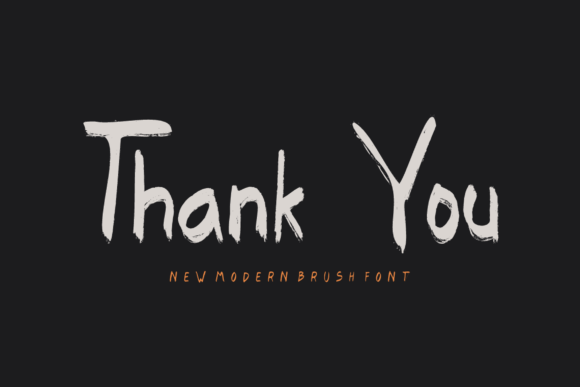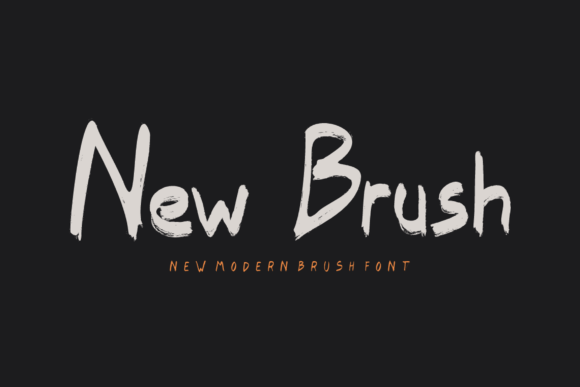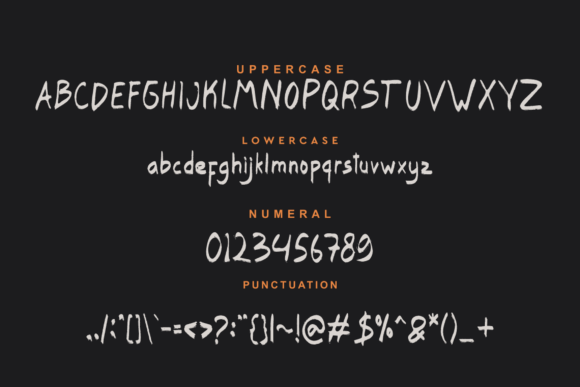
Unleash Your Creativity with the Brush Elementary Font
Have you ever been working on a design project and suddenly, the perfect font pops into your mind? That’s exactly what happened to me when I discovered the Brush Elementary Font. I was brainstorming ideas for a new logo, and the moment I typed out the words in this beautiful handwritten brush font, I knew I had found the perfect match. The unique touch and charm of Brush Elementary Font instantly elevated my design and gave it a life of its own.
The Brush Elementary Font is a game-changer for designers looking to create eye-catching logos, branding, and quotes. Its beautiful, handwritten style adds a personal touch to any design, making it stand out from the crowd. Whether you’re a seasoned pro or just starting out, this font is a valuable addition to your design toolkit. Its versatility and unique character make it the perfect choice for designers who want to add a touch of personality to their work.
Brush Elementary Font Key Features
- Unique Characteristic: Brush Elementary Font features a unique, hand-drawn style with subtle imperfections, giving it a personal and artistic touch.
- Kerning and Ligatures: The font includes advanced kerning and ligature pairs, ensuring smooth and even spacing between letters.
Brush Elementary Font Review
Overall, I’m quite pleased with the Brush Elementary Font. It’s got a certain charm to it that’s hard to put your finger on, but it’s definitely there.
- ✨ Unique character: The Brush Elementary Font has a distinct personality that sets it apart from more common fonts. It’s a great choice for anyone looking to add some visual interest to their designs.
- ✨ Friendly and approachable: The font’s rounded edges and soft curves make it feel welcoming and easy to read.
- ✨ Versatile: Brush Elementary Font works well in a variety of contexts, from children’s books to branding and advertising.
- ⚠️ Limited font weights: The font only comes in a few weights, which can make it difficult to achieve the desired level of contrast and hierarchy in your design.
- ⚠️ Not ideal for small text: The font’s thick strokes and rounded edges can make small text difficult to read, especially at smaller font sizes.
While the Brush Elementary Font may not be perfect, it’s a great choice for anyone looking for a unique and friendly font. With a little creativity and experimentation, you can work around its limitations and achieve some truly beautiful designs.
To get the most out of the Brush Elementary Font, try the following:
- Use it in combination with other creative fonts to add visual interest.
- Experiment with different font sizes and colors to create contrast.
- Use it for headings and titles to add a touch of elegance.
The Brush Elementary Font is ideal for:
- Designing invitations and greeting cards.
- Creating custom logos and branding materials.
- Adding a touch of elegance to presentations and reports.
Alternatives to Brush Elementary Font
Great Vibes is a modern script font that is perfect for adding a touch of elegance to your designs. It’s ideal for use in branding, advertising, and editorial content. Great Vibes is more refined and polished compared to Brush Elementary Font, making it suitable for formal and professional projects.
Carolyna Pro is a beautiful script font that is reminiscent of classic brush fonts. It’s great for use in invitations, wedding designs, and other creative projects. While it shares some similarities with Brush Elementary Font, Carolyna Pro is more versatile and has a wider range of styles to choose from.
Carolyna Pro is compared to Brush Elementary Font as it offers more versatility, whereas Brush Elementary Font has a more limited range of styles.